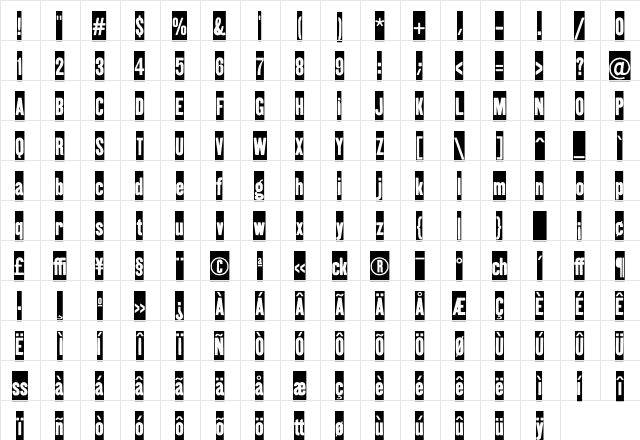
Kipp No2
Design Context for Kipp Typeface
Kipp is a composed and adaptable typeface that performs quietly and consistently across a wide range of design contexts.